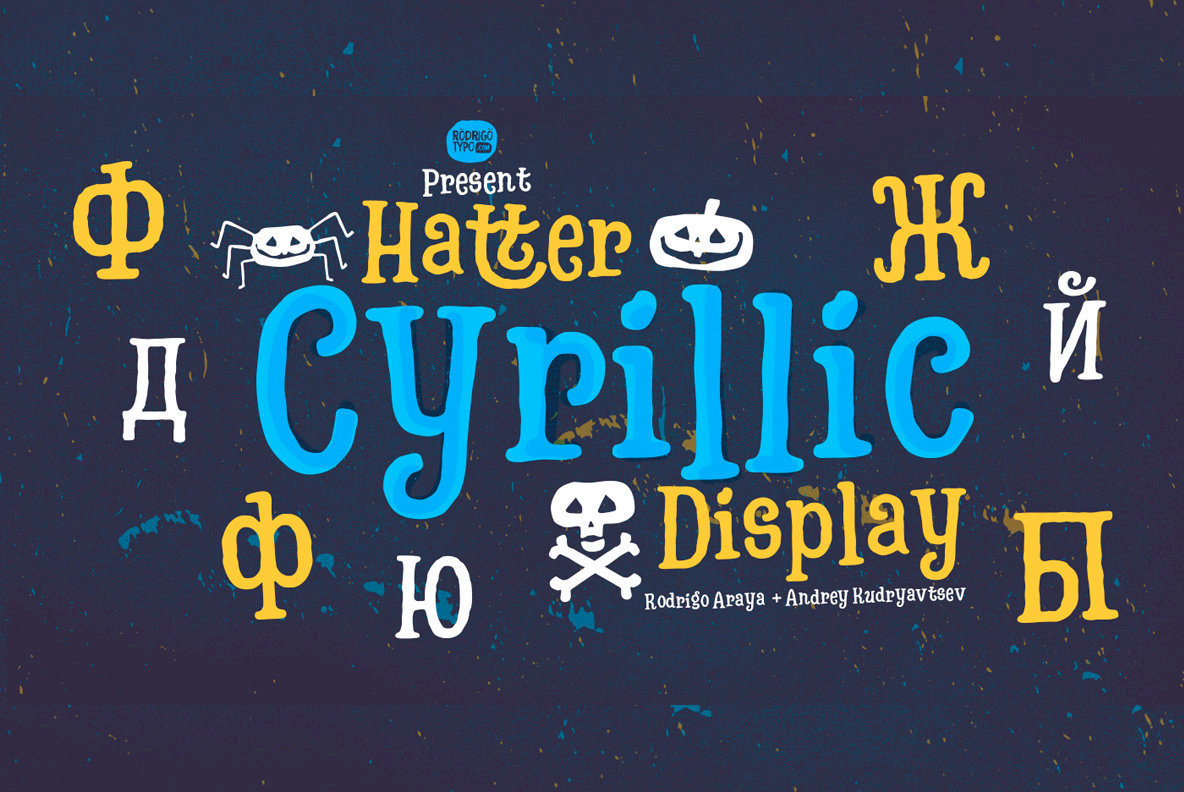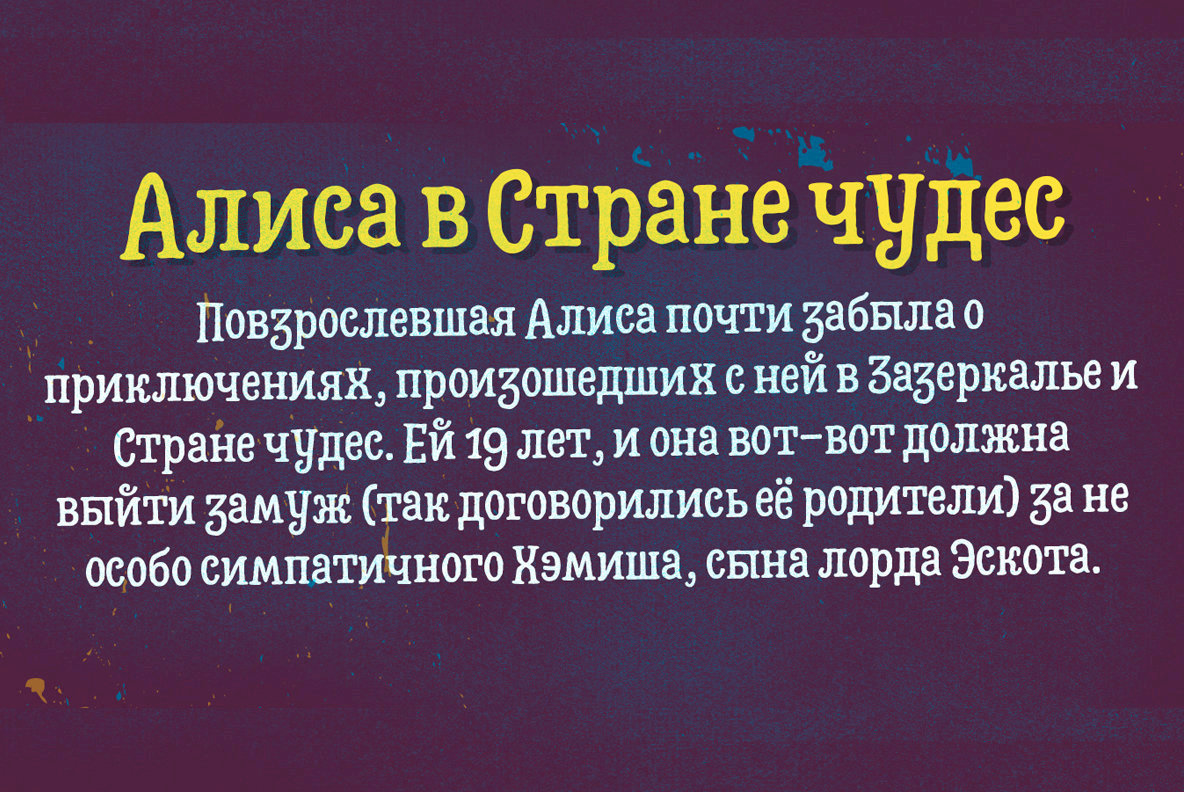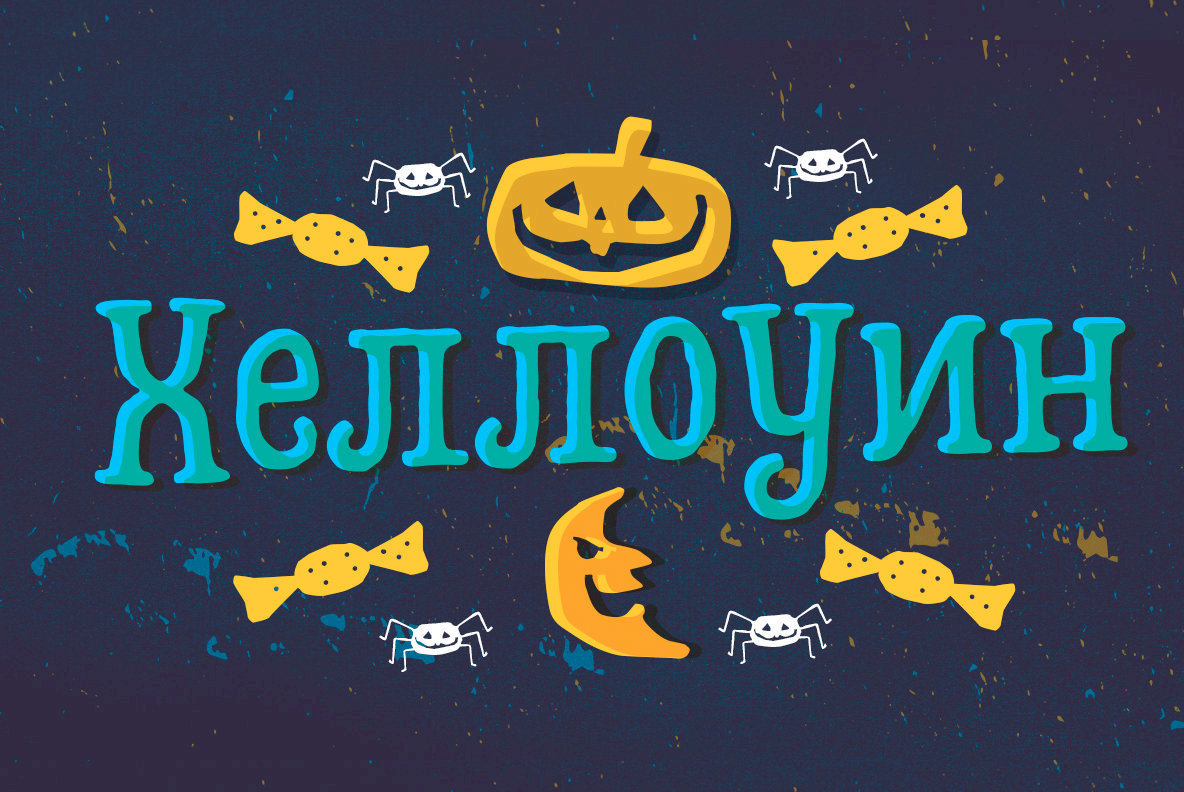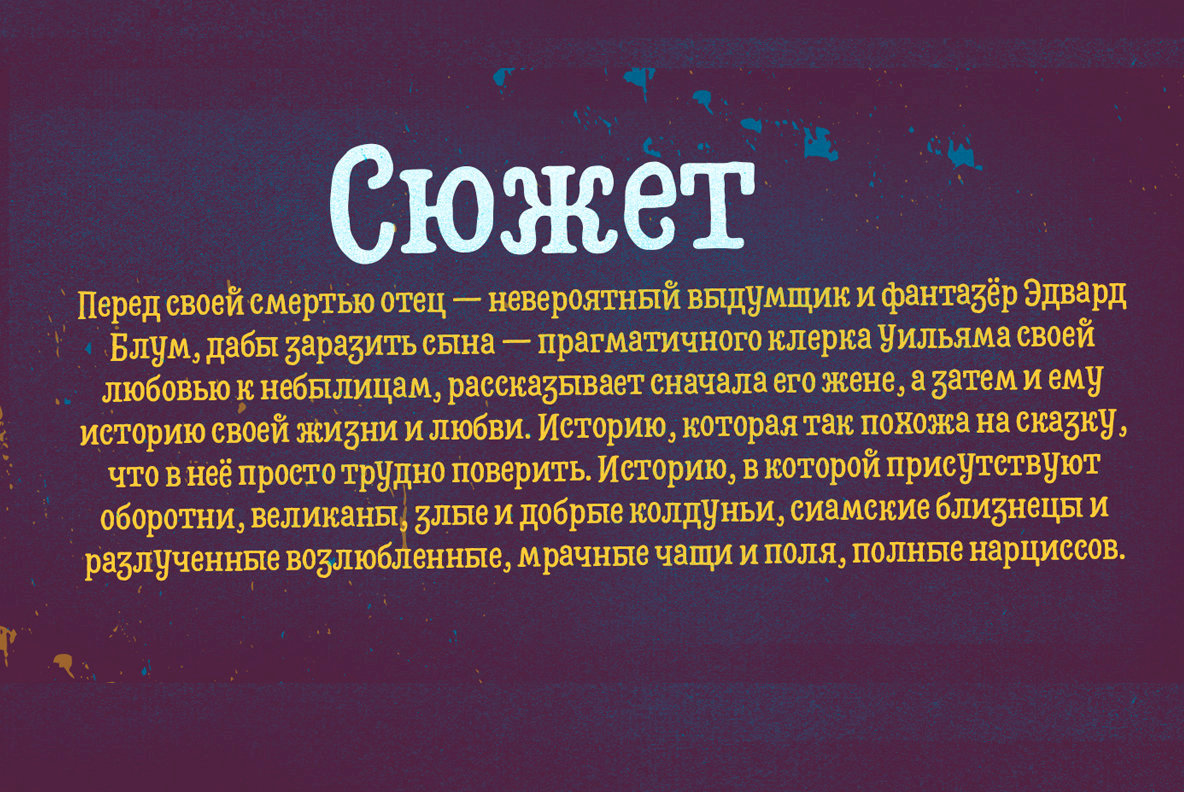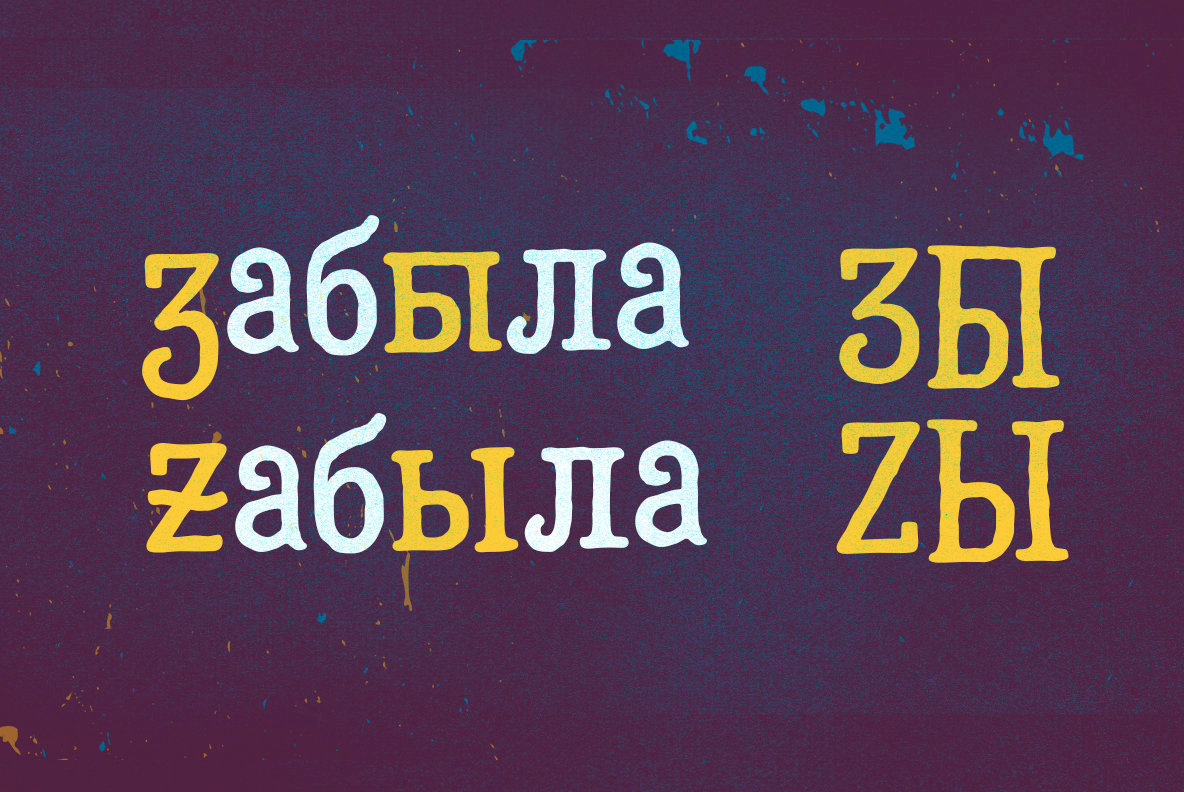
Hatter Cyrillic Display
The Hatter Cyrillic Display font captures the essence of Halloween and whimsical storytelling, making it an ideal choice for any project requiring a touch of monster magic. Designed by RodrigoTypo, this display font embraces the playful and eclectic, weaving together elements reminiscent of witches' lore and classic horror.Hatter Cyrillic Display: Whimsical Typographic Adventure